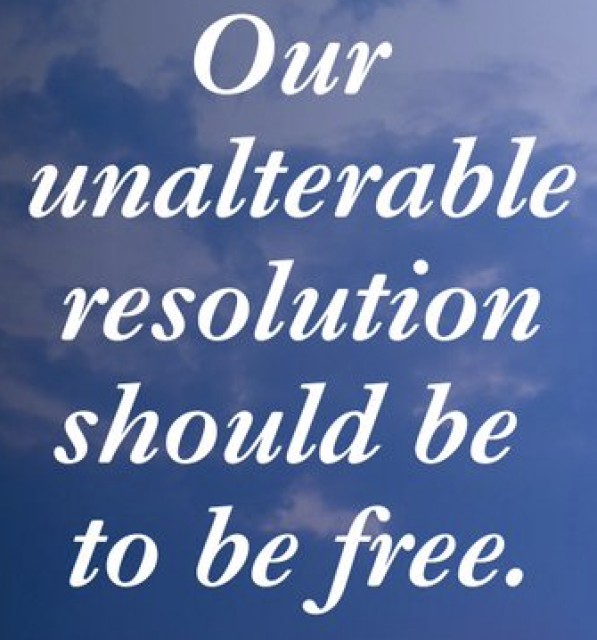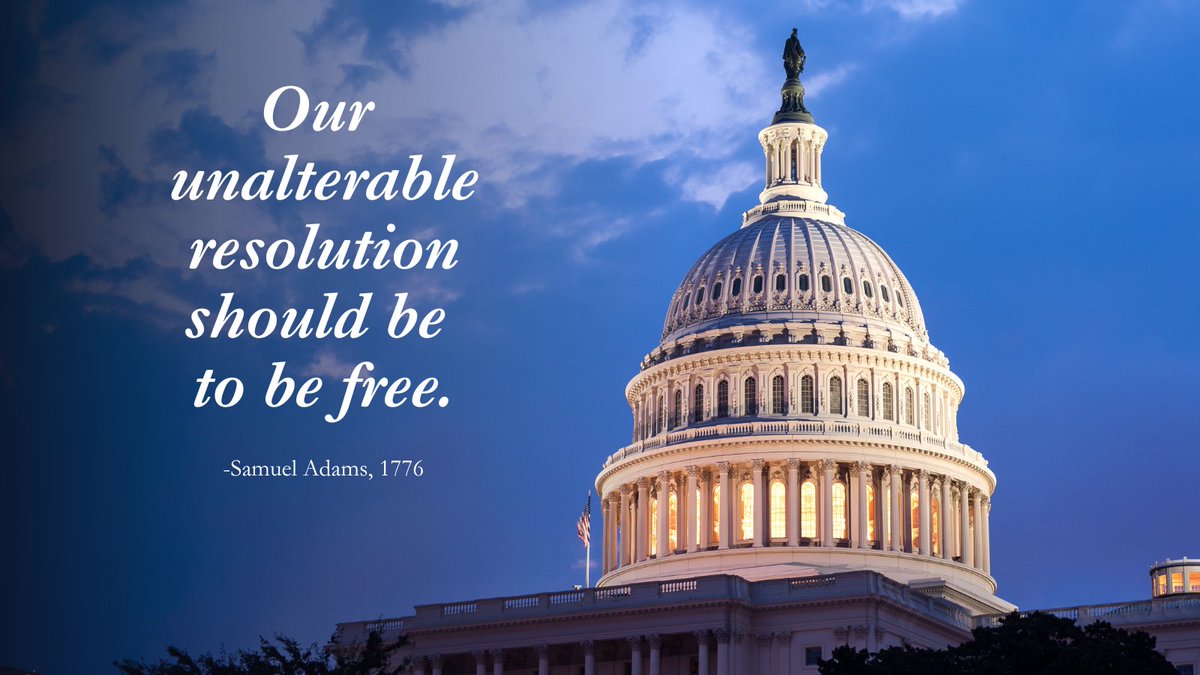
Maybe this is a version of Bell I'm not familiar with?
Thank you. Please forgive my stupidity! Not a transitional obviously, tho' the "h" and other aspects of text struck me as such.
I didn't recognize it either— had to run it through character recognition software.
Garamond has fallen out of fashion, but since it is bundled with operating systems it lives on....
You make me feel better! It looks quite different from Adobe Garamond and from Garamond Premier Pro which I think is lovely. More like a peculiar mash-up lacking the refinement of other old-style versions of it IMHO.